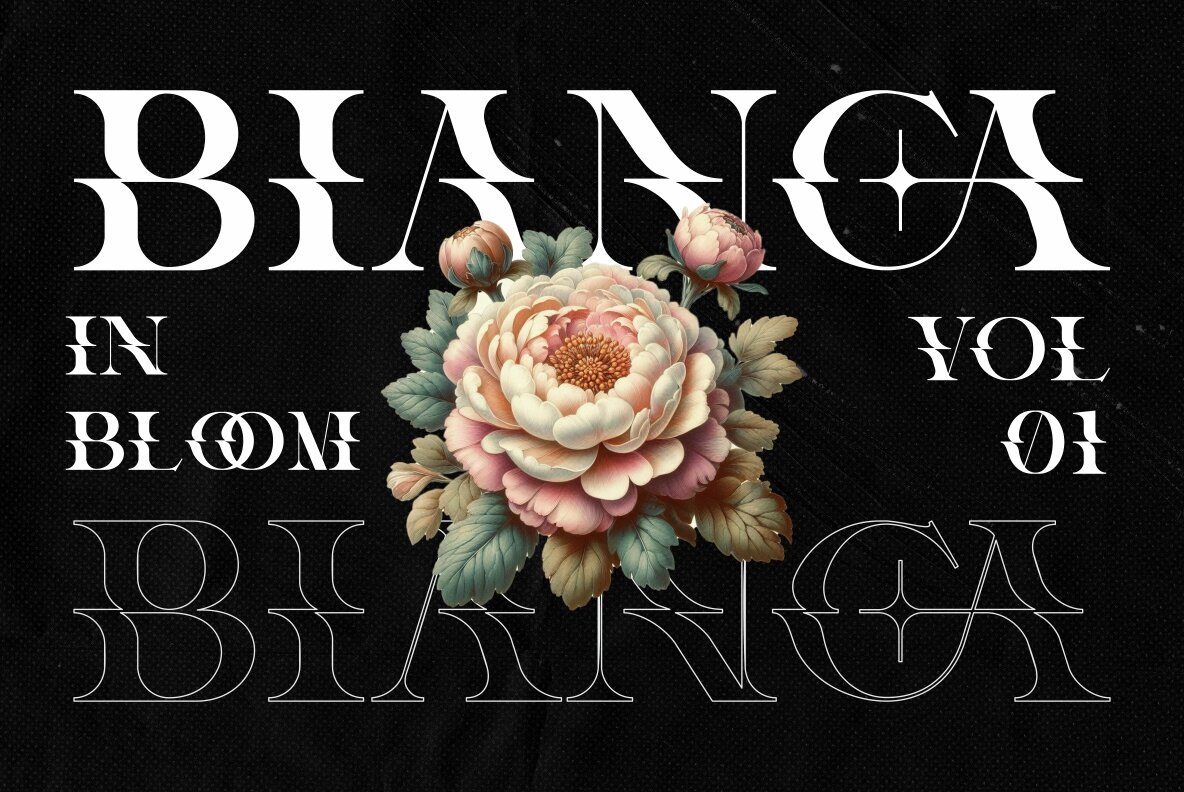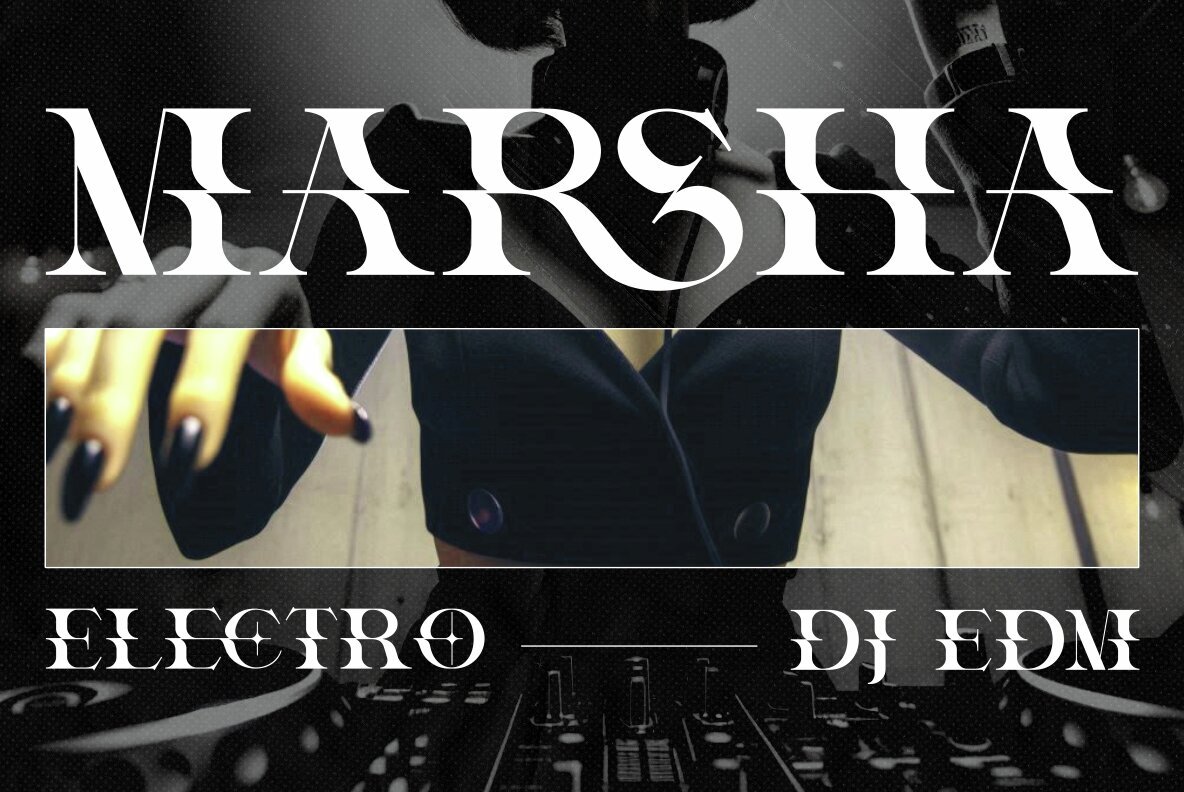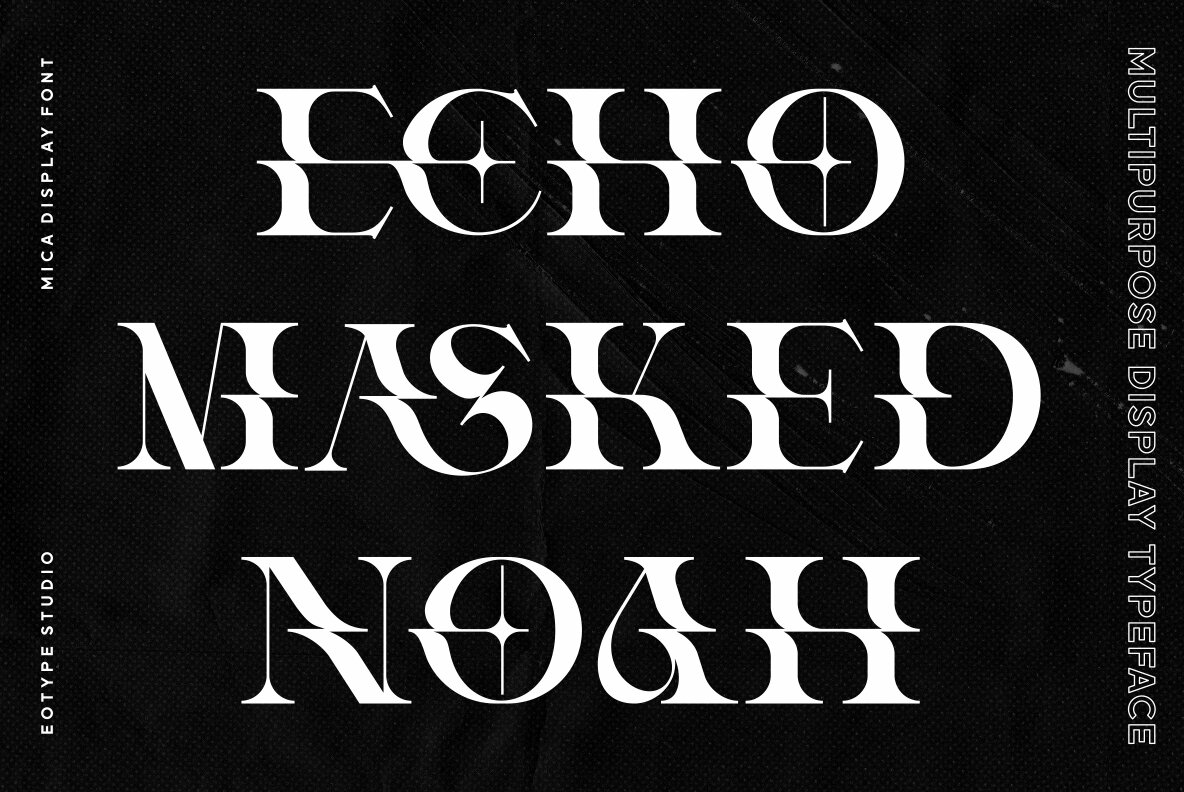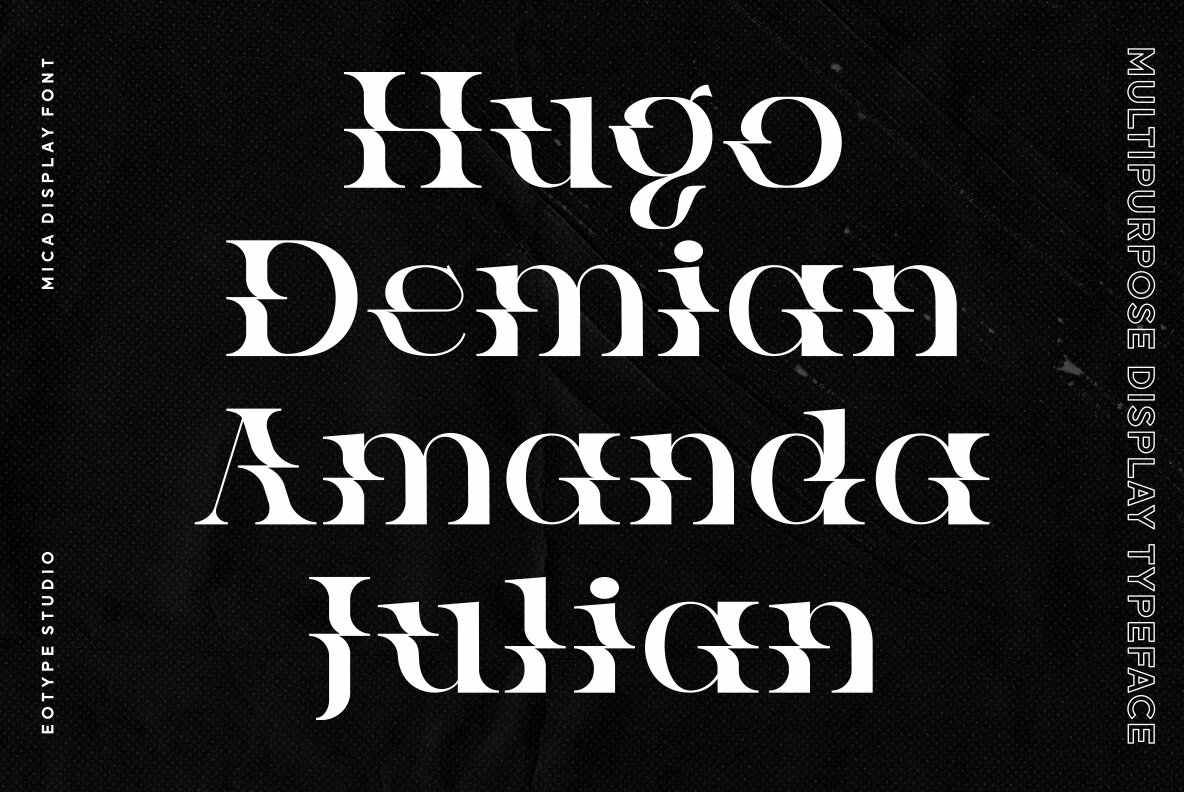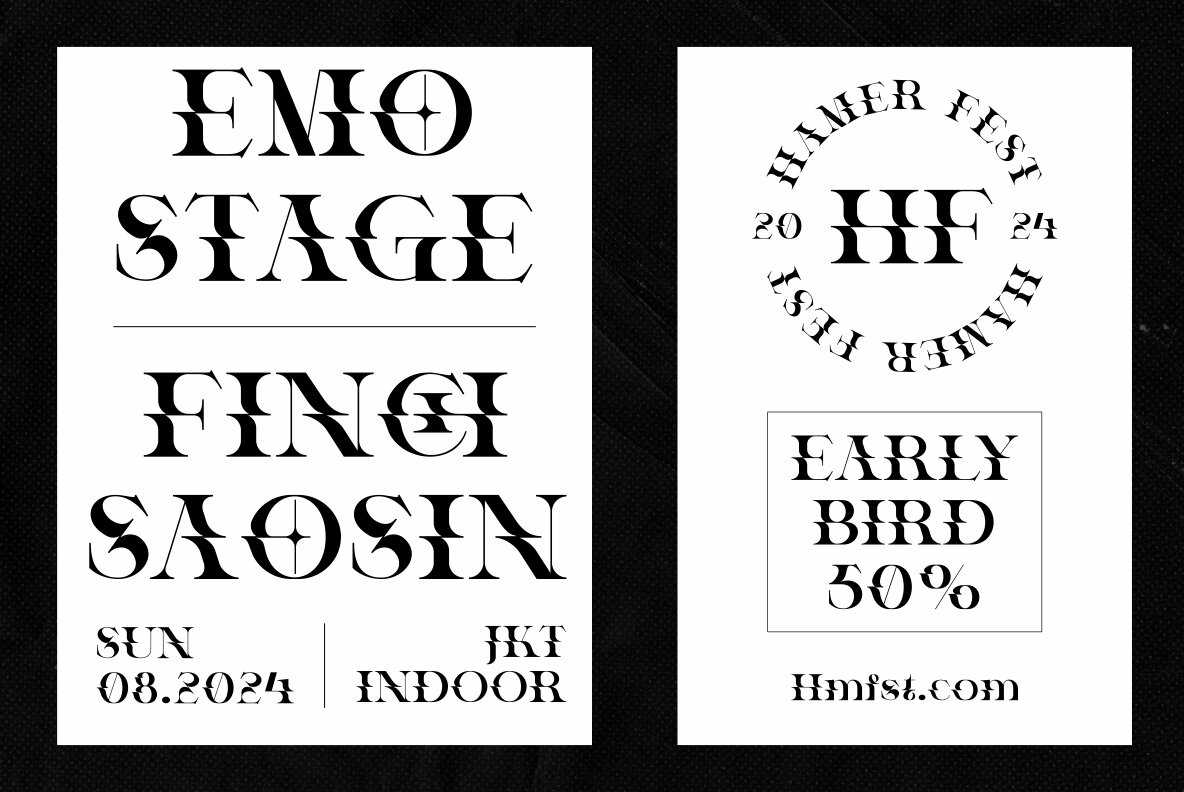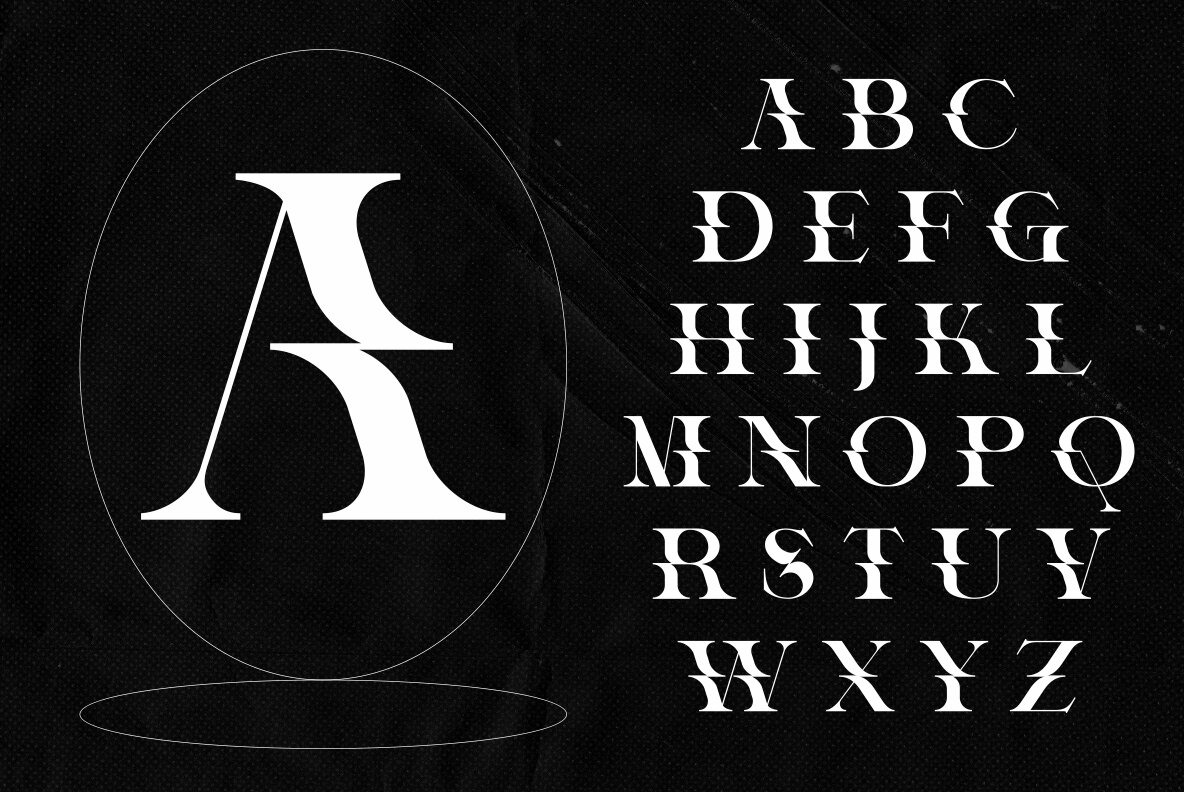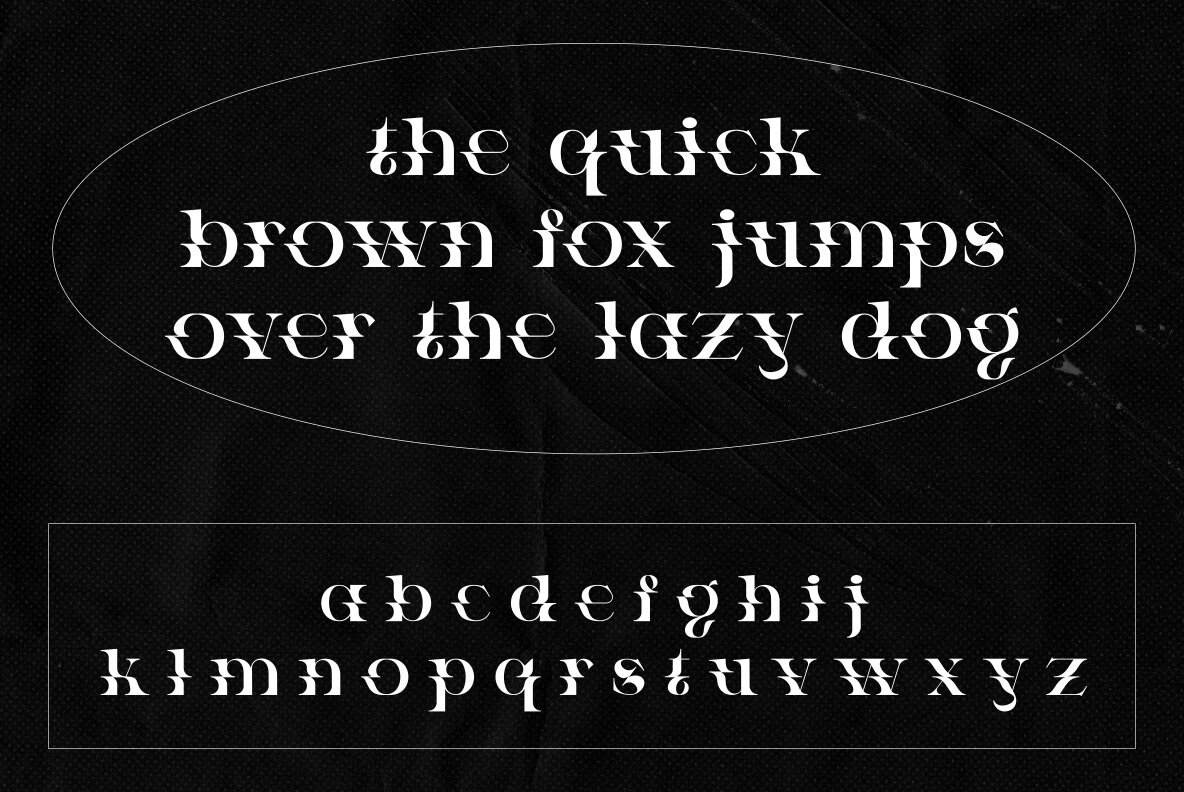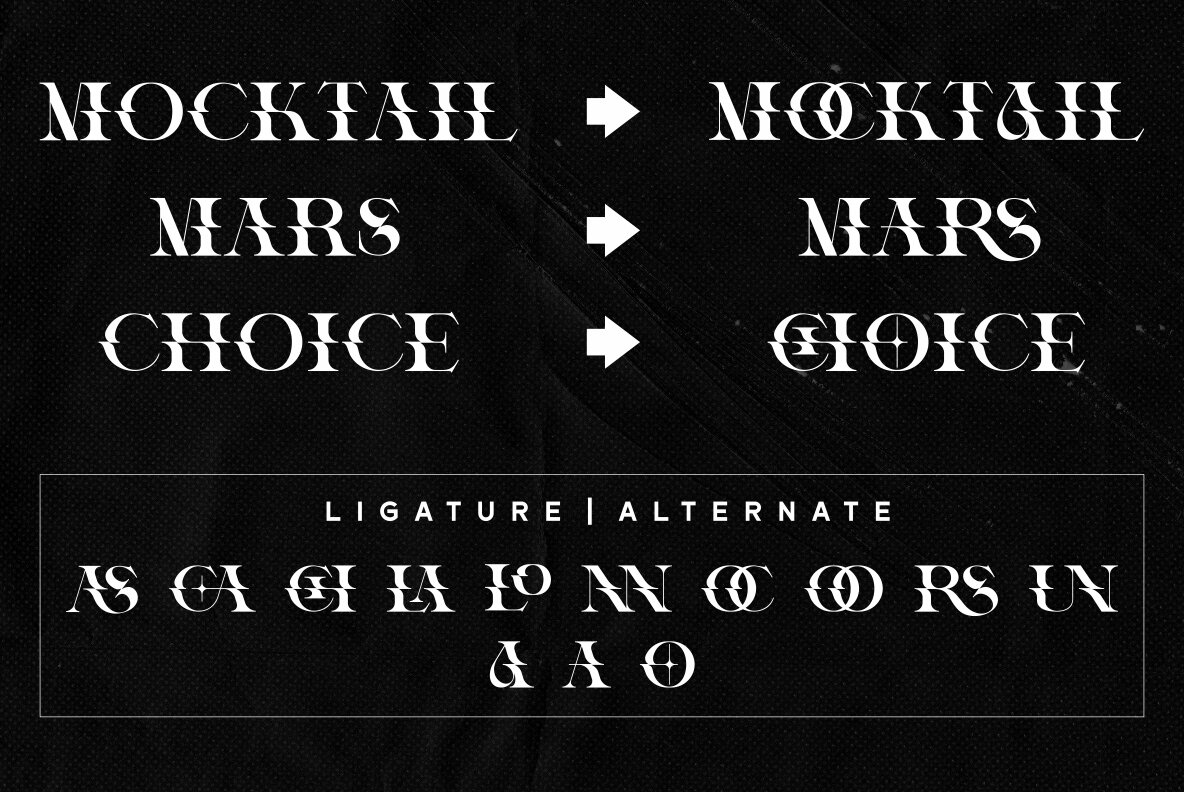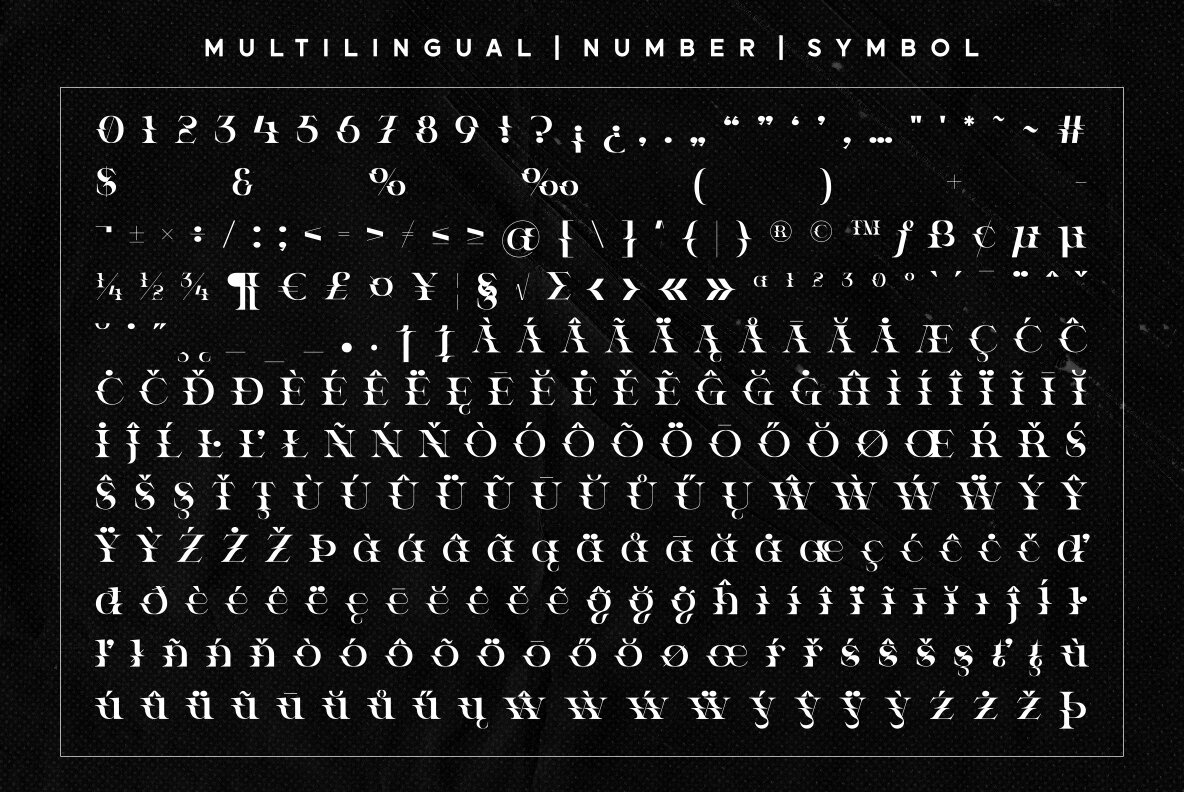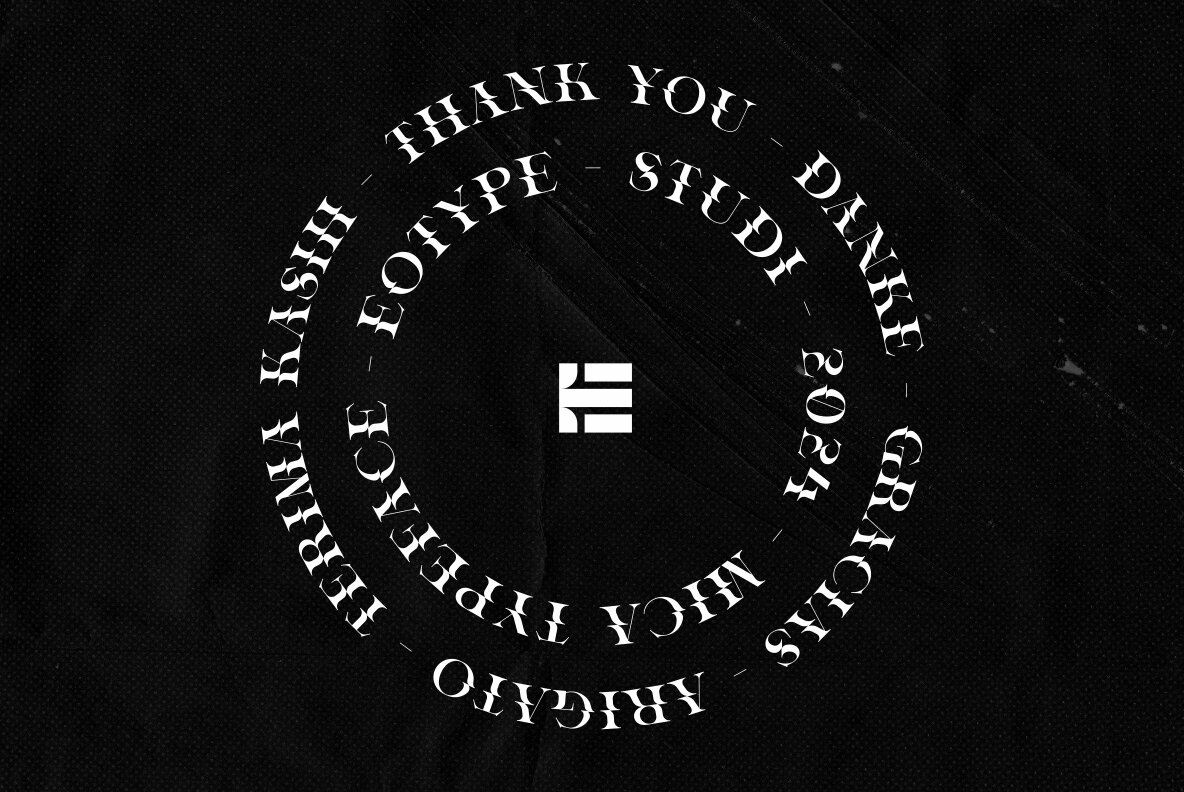
Mica Font
Mica
Mica a decorative serif font is a typeface that blends the traditional elegance of serif fonts with ornamental and artistic elements. It features the characteristic small strokes or lines (serifs) at the ends of the letters, but with added embellishments such as flourishes, intricate details, or unique shapes. These fonts are designed to be visually striking, often used in headlines, logos, or any context where typography needs to make a strong, stylish impact. Decorative serif fonts are perfect for creating a sense of sophistication, creativity, and flair in design